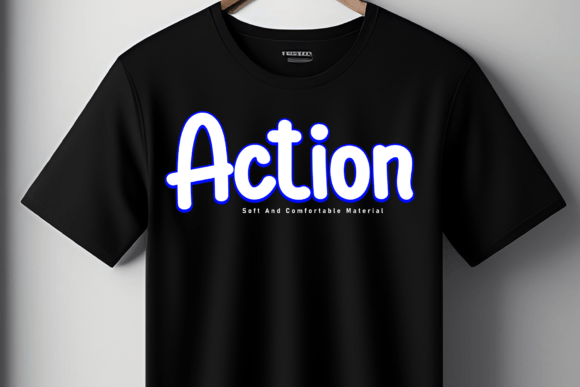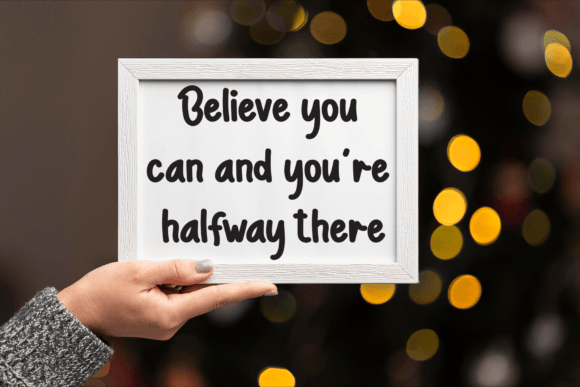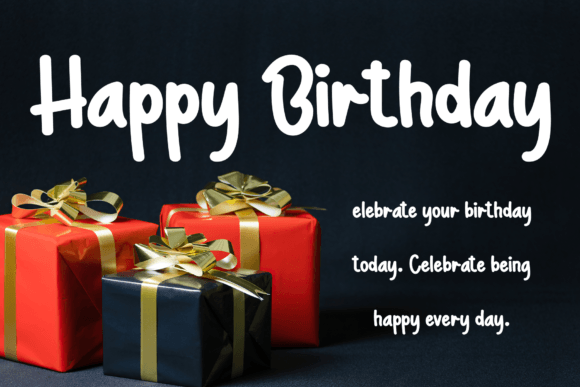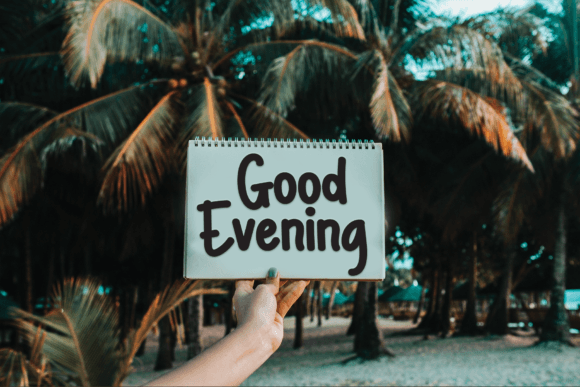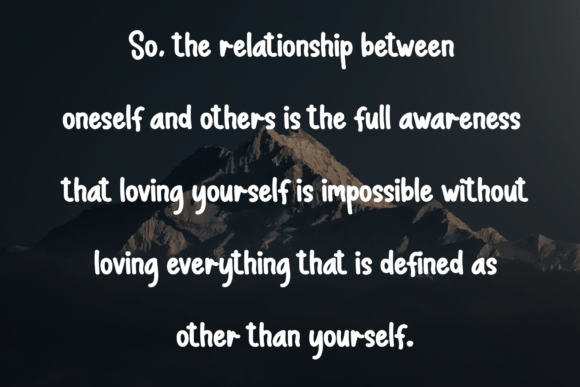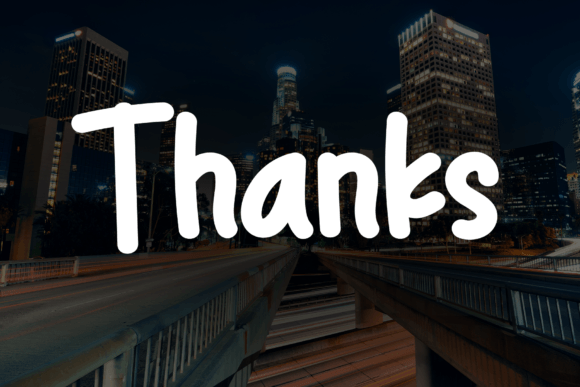
Introducing Beautiful Chicago Font: The Perfect Addition to Your Design Arsenal
Are you tired of using the same old fonts in your designs? Look no further! Beautiful Chicago Font is a sweet and friendly handwritten display font that’s sure to add a fun touch to your creations. In this article, we’ll dive into the world of Beautiful Chicago Font, exploring its features, uses, and benefits for designers and crafters alike.
What is Beautiful Chicago Font?
Beautiful Chicago Font is a stunning handwritten display font that’s perfect for adding a personal touch to your designs. With its cute and fun aesthetic, this font is ideal for writing wedding invitations, cards, or any other design that might need a playful twist. Whether you’re a designer, crafter, or DIY enthusiast, Beautiful Chicago Font is sure to become a favorite in your collection.
Key Features of Beautiful Chicago Font
- Handwritten Display Font: Beautiful Chicago Font is a true handwritten font, giving your designs a personal and unique feel.
- Cute and Fun Aesthetic: This font is perfect for adding a playful touch to your designs, making it ideal for wedding invitations, cards, and other celebratory materials.
- Versatile: Beautiful Chicago Font can be used for a wide range of design projects, from digital graphics to print materials.
- Easily Readable: Despite its playful nature, Beautiful Chicago Font is surprisingly easy to read, making it perfect for longer texts and paragraphs.
Uses for Beautiful Chicago Font
Beautiful Chicago Font is incredibly versatile, making it suitable for a wide range of design projects. Here are just a few ideas to get you started:
- Wedding Invitations: Add a touch of romance and whimsy to your wedding invitations with Beautiful Chicago Font.
- Greeting Cards: Create one-of-a-kind greeting cards for birthdays, holidays, and other special occasions.
- Digital Graphics: Use Beautiful Chicago Font to add a personal touch to your social media graphics, blog posts, and other digital content.
- Print Materials: Beautiful Chicago Font is perfect for adding a playful touch to brochures, flyers, and other print materials.
So why should designers and crafters choose Beautiful Chicago Font? Here are just a few benefits:
- Unique and Eye-Catching: Beautiful Chicago Font is sure to make your designs stand out from the crowd.
- Easily Customizable: This font is easy to customize, allowing you to adjust the size, color, and style to fit your design needs.
- Time-Saving: With Beautiful Chicago Font, you can create stunning designs in no time, saving you hours of work and frustration.
In conclusion, Beautiful Chicago Font is a sweet and friendly handwritten display font that’s perfect for adding a fun touch to your designs. With its cute and playful aesthetic, versatile uses, and numerous benefits, this font is sure to become a favorite among designers and crafters alike. So why wait? Download Beautiful Chicago Font today and start creating stunning designs that are sure to impress!